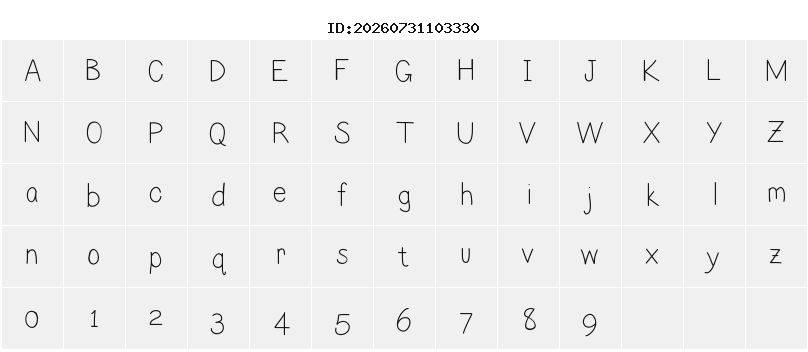
Lilian Preview
About Lilian.ttf
Lilian.ttf is a modern, elegant sans-serif font designed for ultimate readability and visual harmony. Perfect for branding, headlines, web design, and print materials.